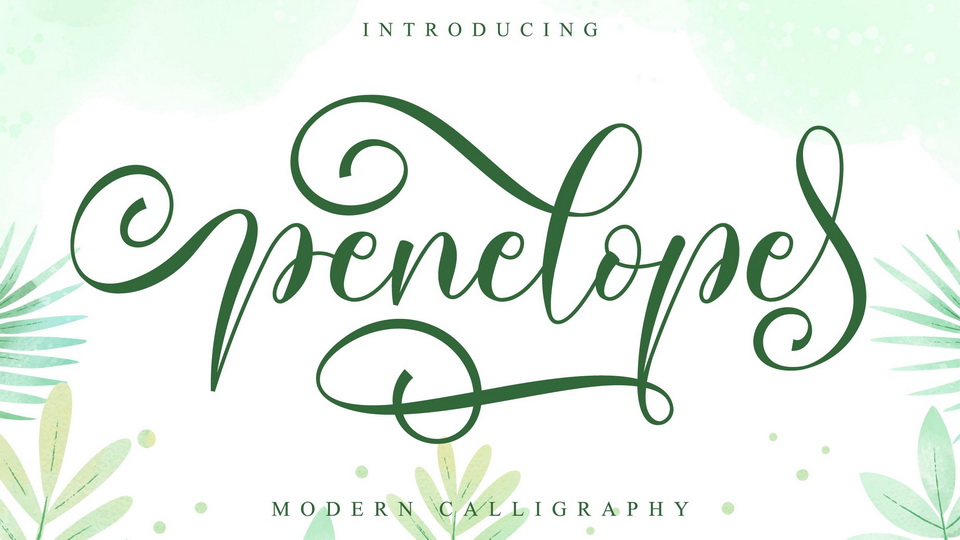
Download Penelope font, a beautiful and elegant script typeface. With its authentic feel Penelope is perfect to create gorgeous wedding invitations, beautiful stationary art, eye-catching social media posts, and cute greeting cards.
Designer: Nissa Studio